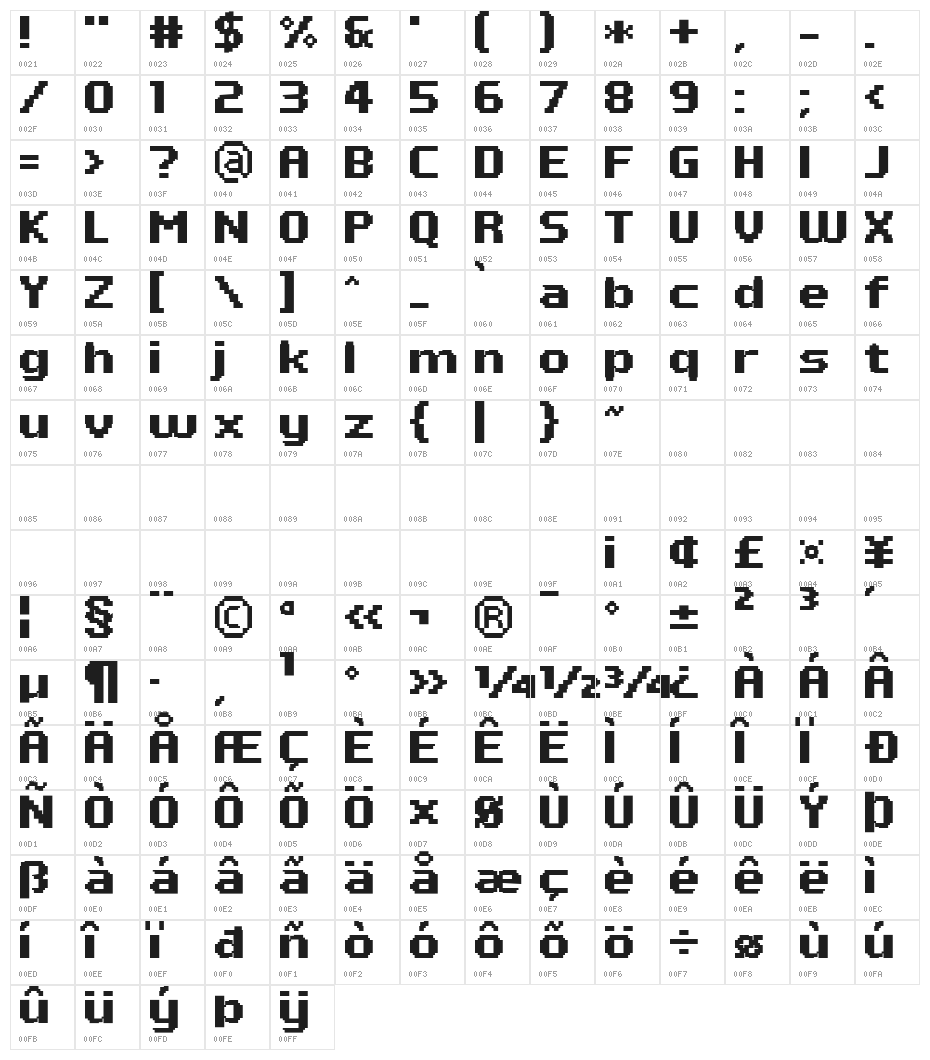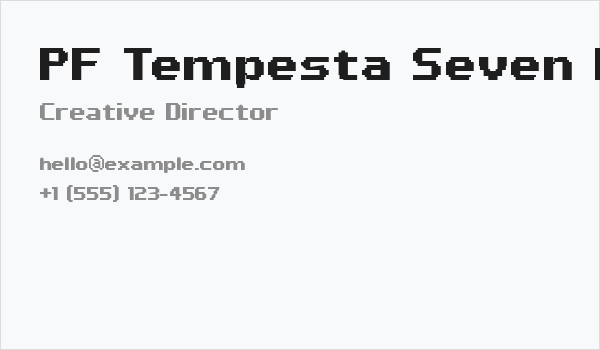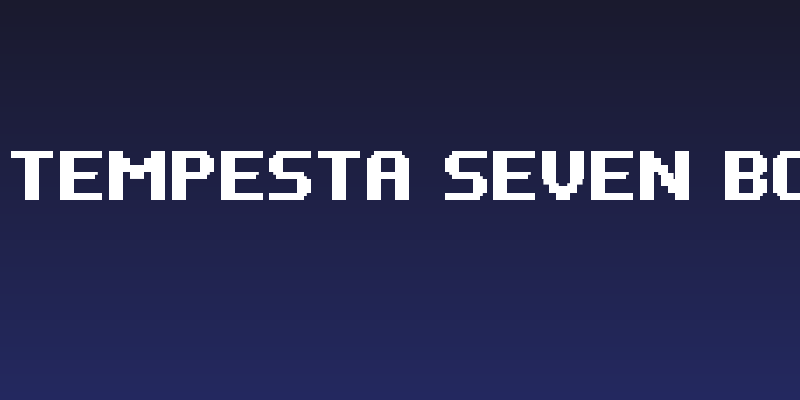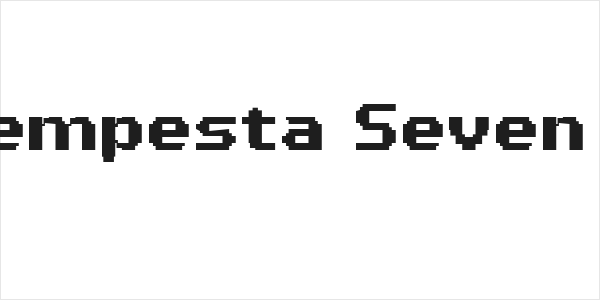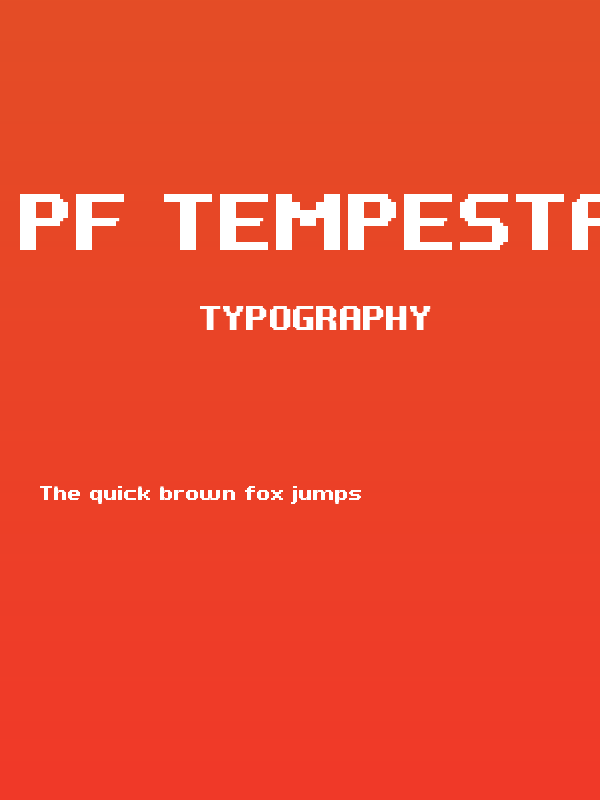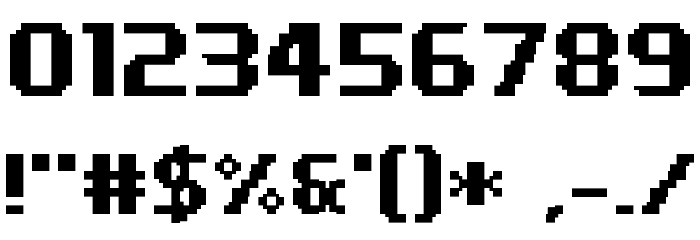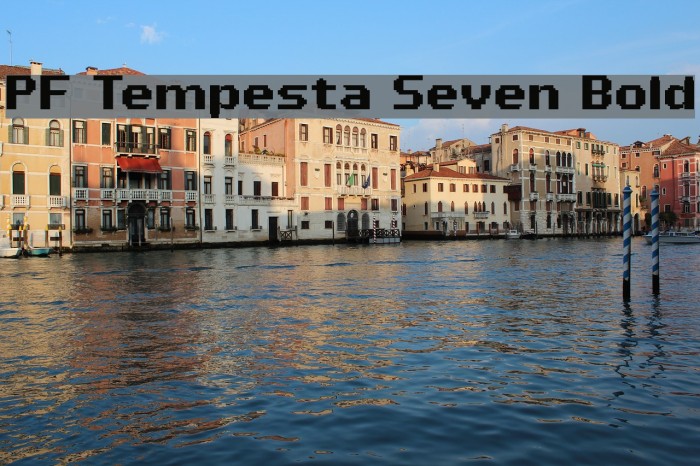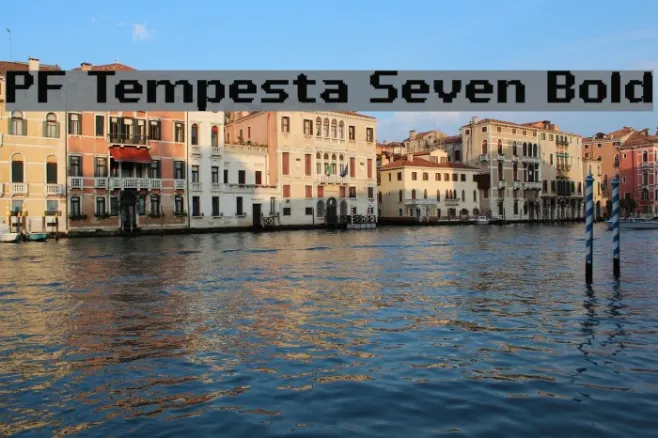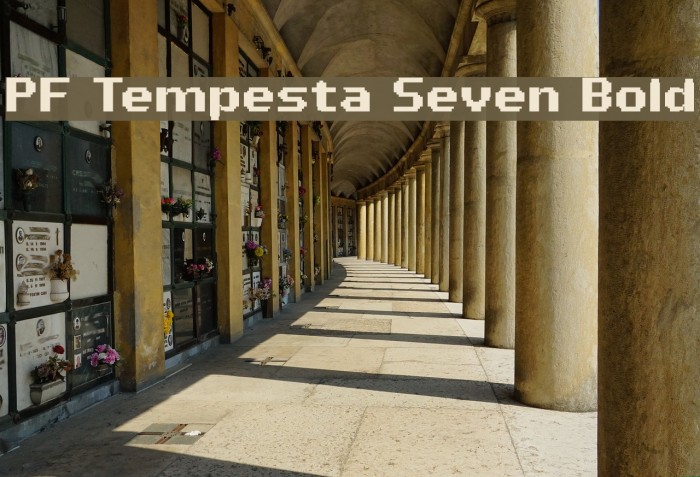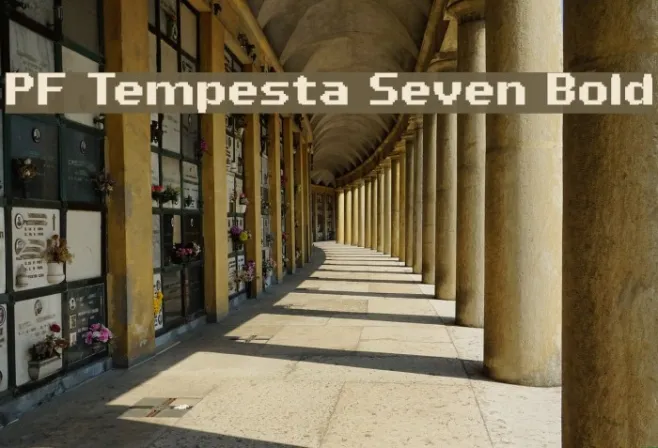
PF Tempesta Seven Bold Font
PF Tempesta Seven Bold Description
This font features a bold, pixelated style that is reminiscent of early digital or video game typography. The characters are blocky and geometric, with a uniform thickness throughout, giving it a distinctly retro and digital feel. The uppercase and lowercase letters maintain a consistent height and width, contributing to a cohesive and structured appearance. The numerals and special characters follow the same design principles, ensuring a harmonious look across all glyphs. This font is ideal for projects that aim to evoke nostalgia or a digital aesthetic, such as video game designs, tech-themed posters, or retro-style branding.
| Overall Style | Retro, Digital |
| Proposed Projects | Video game designs, tech-themed posters, retro-style branding, digital art. |